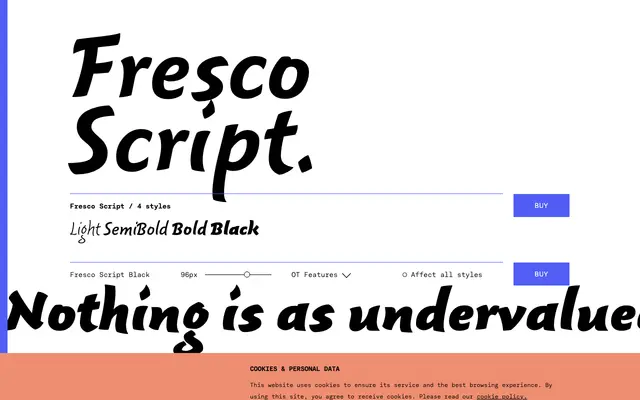
Fresco Script
A loose, semi-formal script rooted in humanist italic, designed without connecting strokes and available in four weights.
Part of the broader Fresco superfamily, this script favours the rhythm of quick, contemporary handwriting over calligraphic formality. Its structure draws from humanist italic but strips away the decorative connectors found in many older script faces, keeping the forms open and readable. Four weights from Light to Black give it some range for display and short-copy use.
Described explicitly as a script typeface and the least formal part of the Fresco superfamily, with strokes rooted in a loose interpretation of classical humanist italic rather than calligraphic tradition.